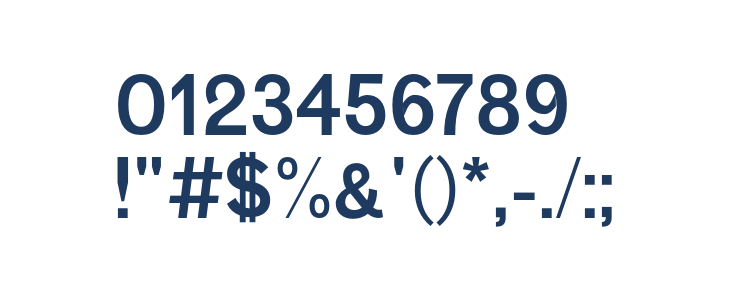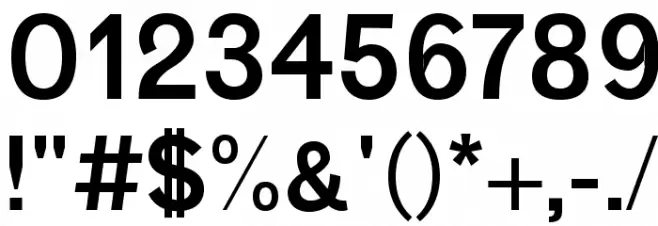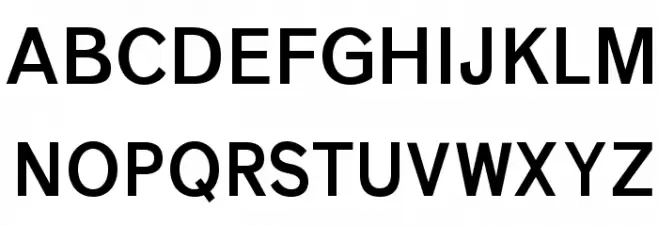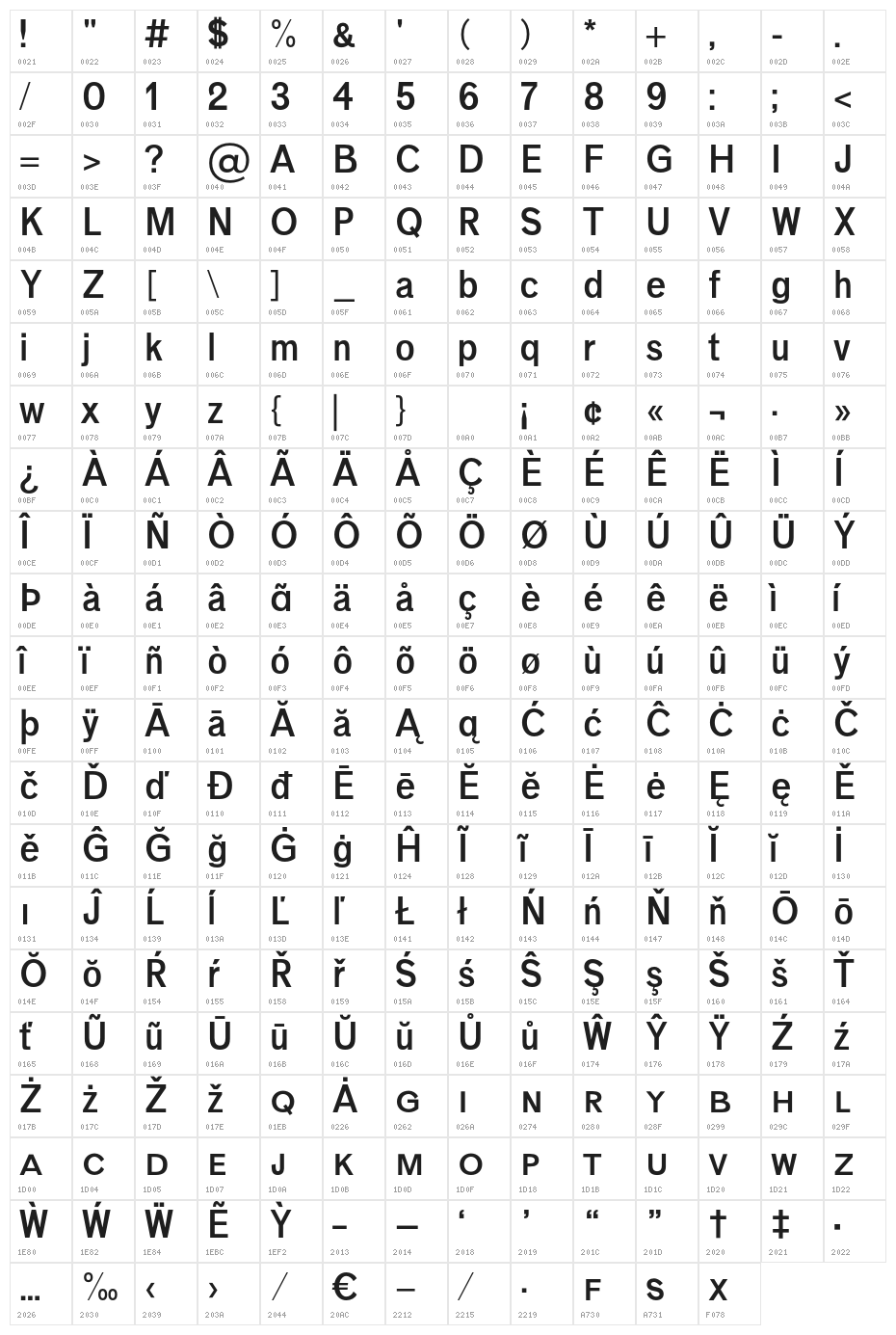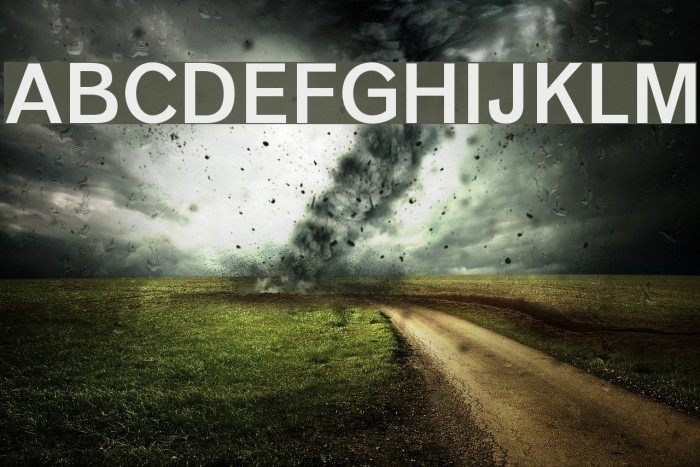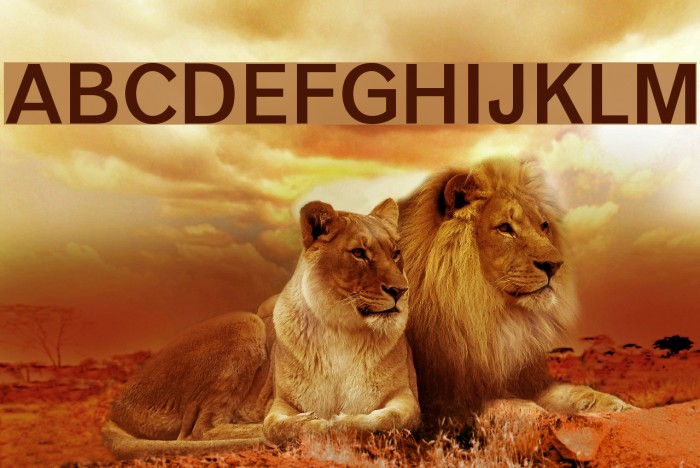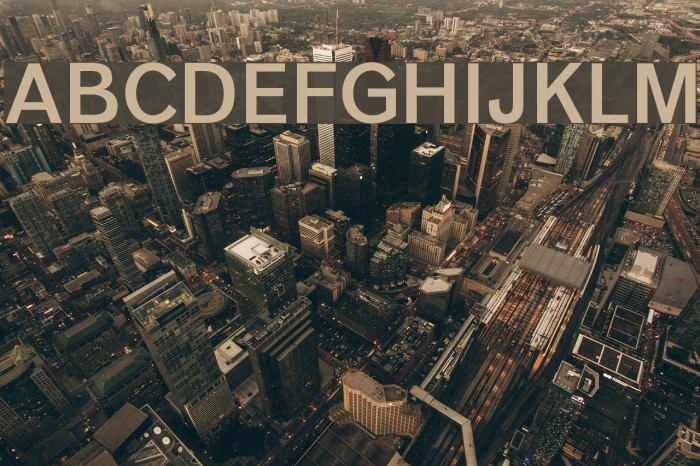
Vengeance Regular Font
Vengeance Regular Description
This typeface presents a clean and modern aesthetic with a straightforward and professional appearance. The characters are well-defined with a consistent stroke width, contributing to its legibility and clarity. The uppercase and lowercase letters maintain a balanced proportion, while the numerals are clear and easily distinguishable. The special characters are designed to complement the overall style, making it versatile for various applications. Its simplicity and uniformity make it suitable for both digital and print media, ensuring readability across different sizes and formats.